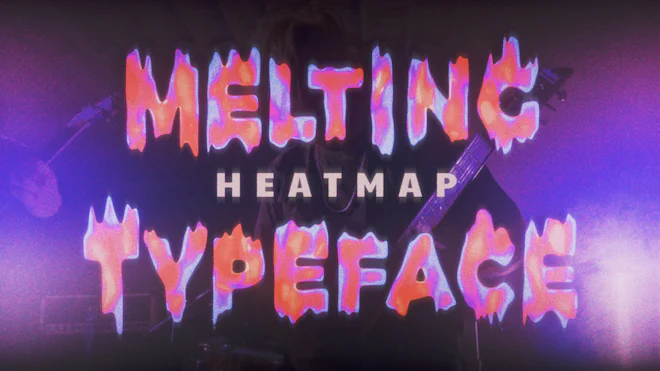
This stock motion graphics video pack includes 50 different clips of melting heat map letters, numbers, and symbols on a transparent alpha channel in a seamless loop.